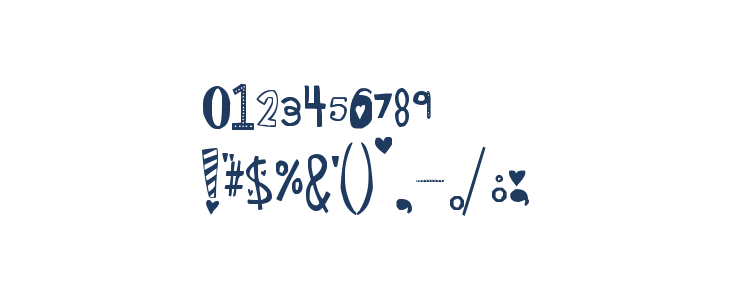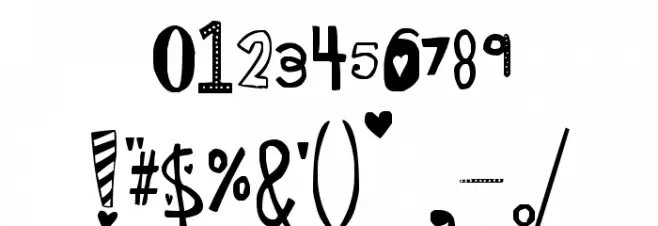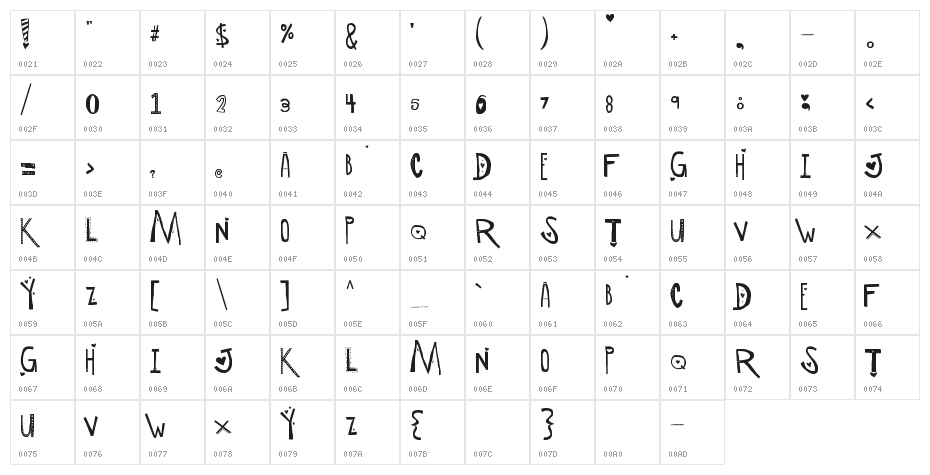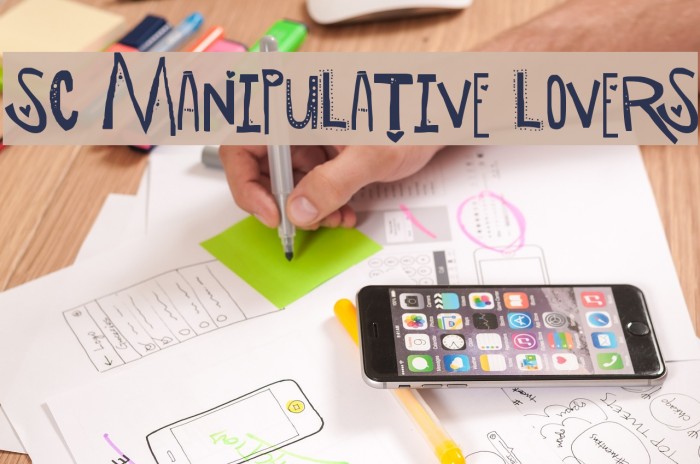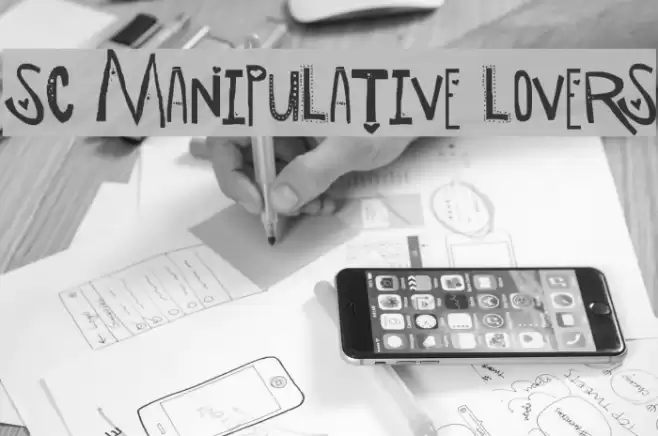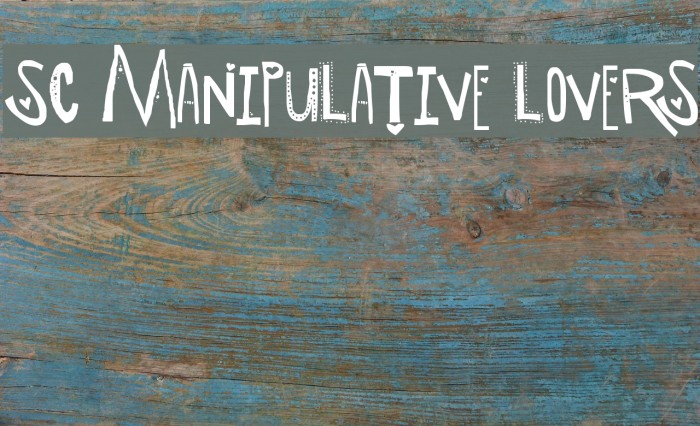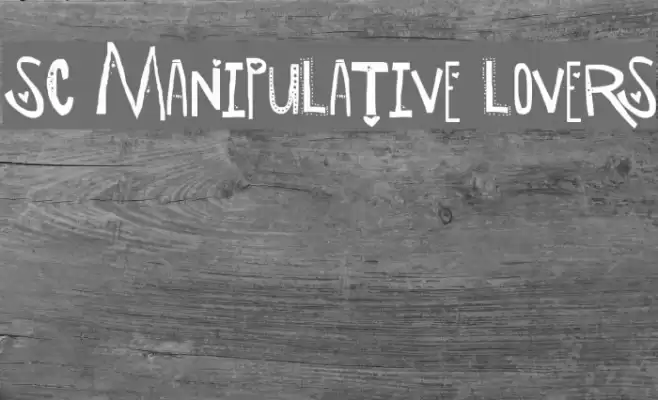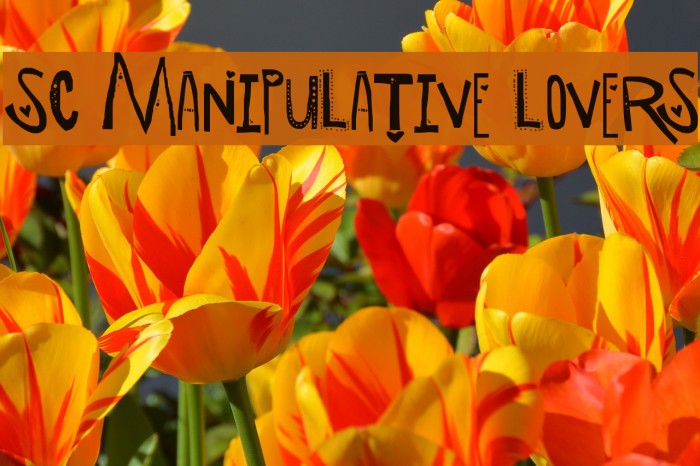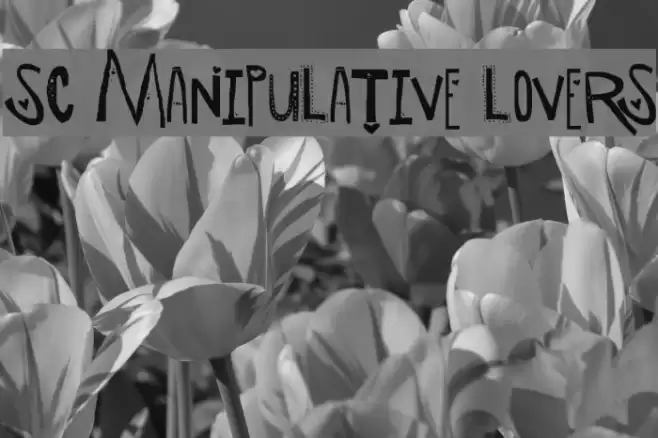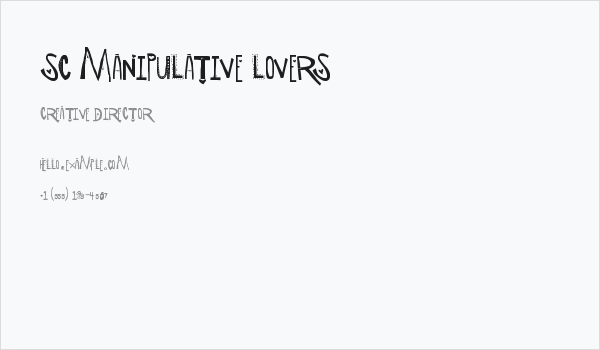
SC Manipulative Lovers Font
SC Manipulative Lovers Description
This playful and whimsical font features a variety of decorative elements, including hearts and dots, integrated into the letterforms. The uppercase and lowercase letters have a hand-drawn, uneven quality, adding to the font's charm and uniqueness. Numbers and special characters maintain the same playful style, with some characters featuring additional embellishments. The overall design is bold and eye-catching, making it suitable for projects that require a fun and informal touch.
| Proposed Projects | Ideal for children's books, greeting cards, playful branding, and party invitations. |